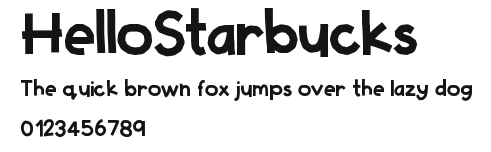
• Font Name: HelloStarbucks
• Full Font Name: HelloStarbucks
• Character Count: 196
About HelloStarbucks.ttf
HelloStarbucks.ttf is a modern, elegant sans-serif font designed for ultimate readability and visual harmony. Perfect for branding, headlines, web design, and print materials.